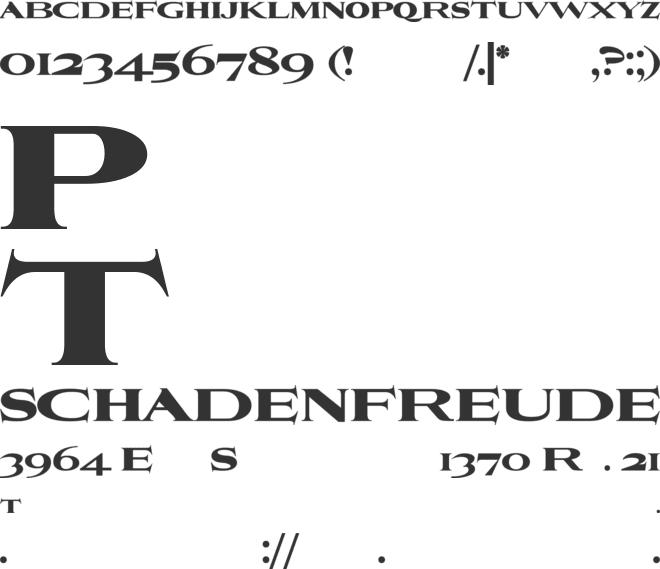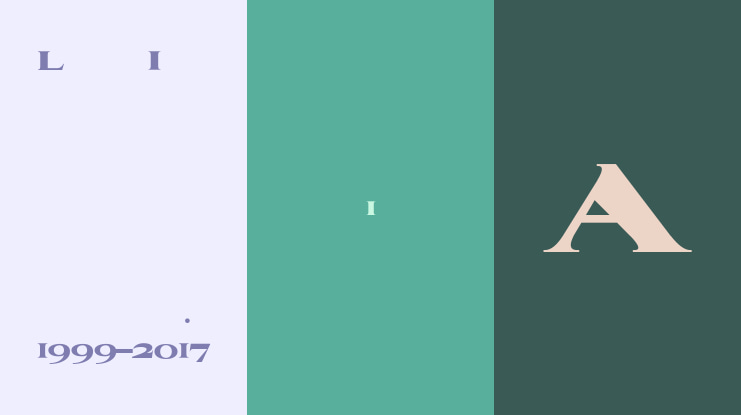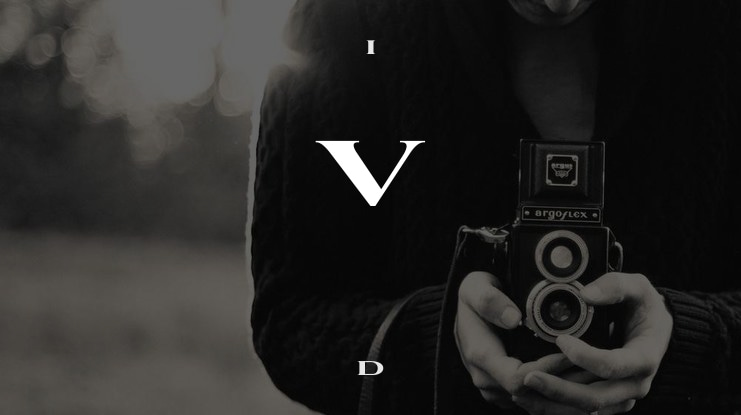
Virginia Font Family
๐ŸŽจ Font Description: Virginia is a vintage serif with ornate charm and multilingual supportโ€”perfect for classic packaging, retro branding, and decorative headlines.
โœ” Complete Latin set + multilingual diacritics
โœ” Alternates, stylistic sets & ligatures
โœ” Numbers, small caps, and extended punctuation
โœ” Bonus italics and family styles